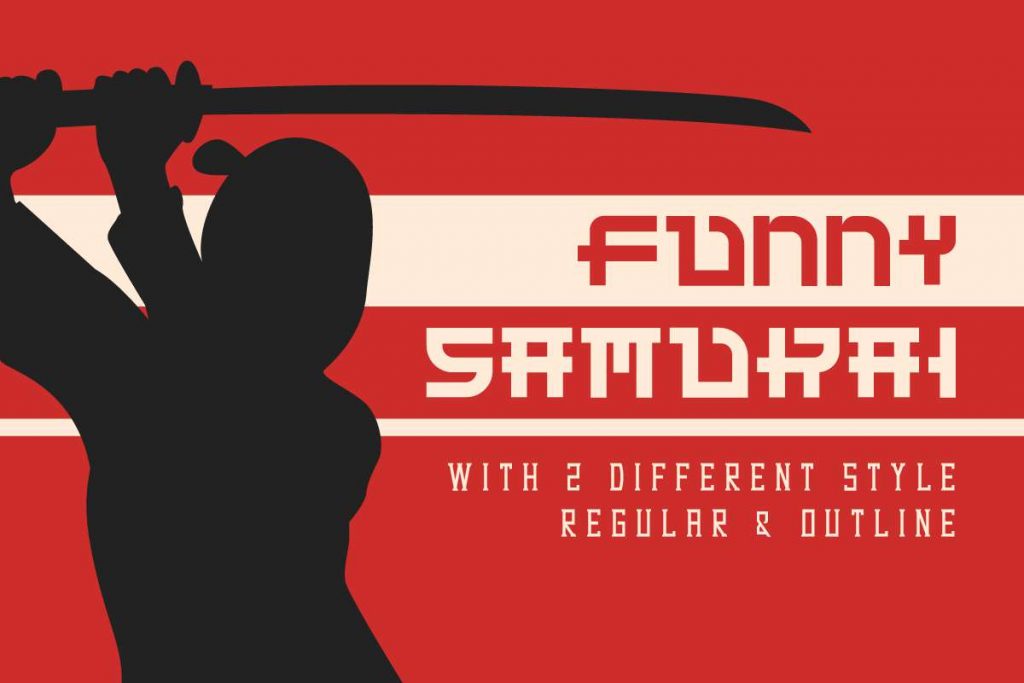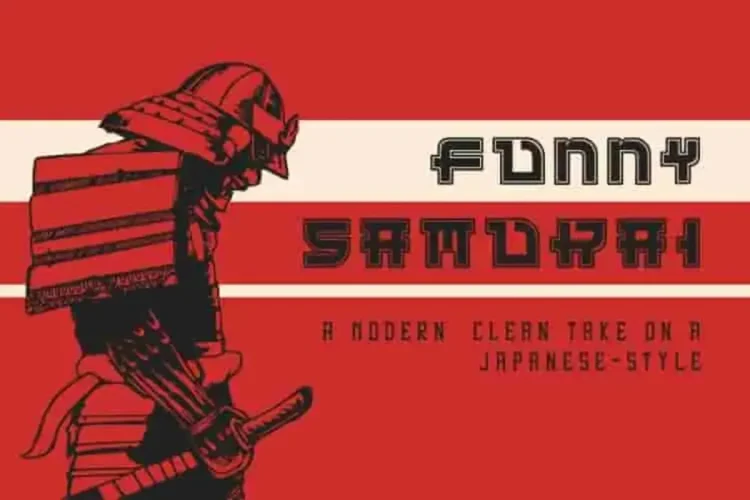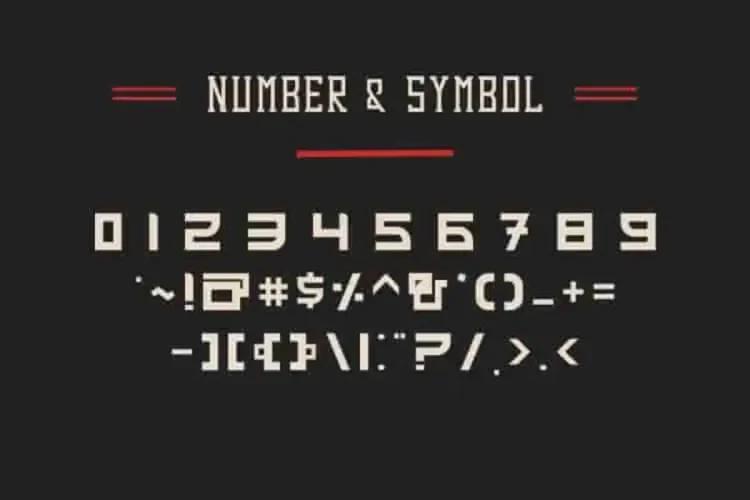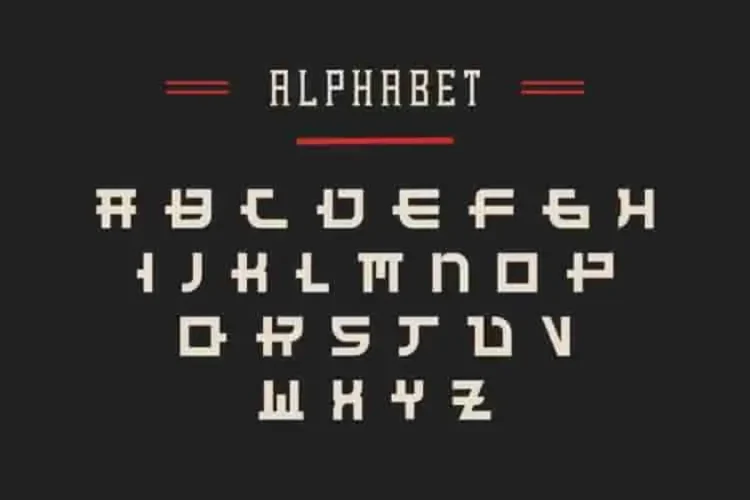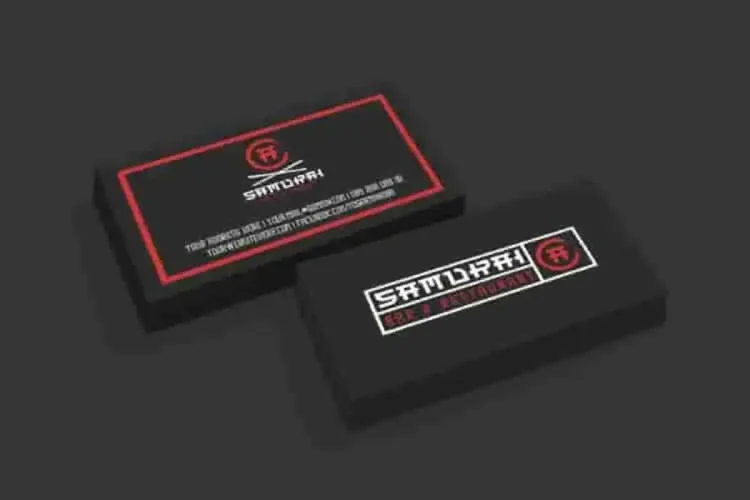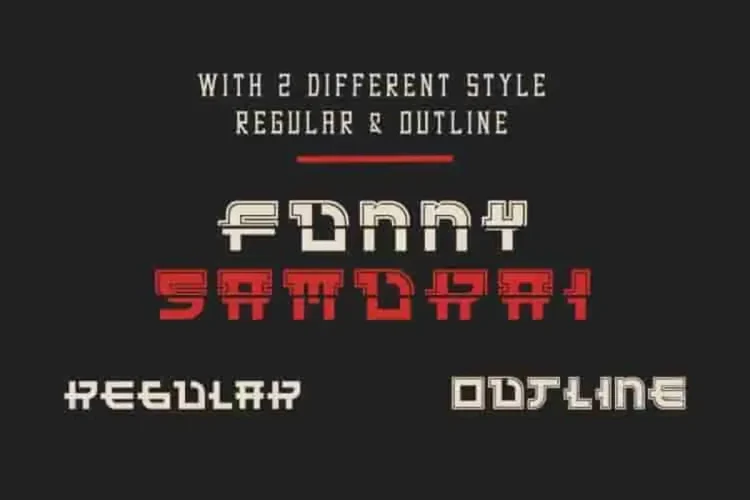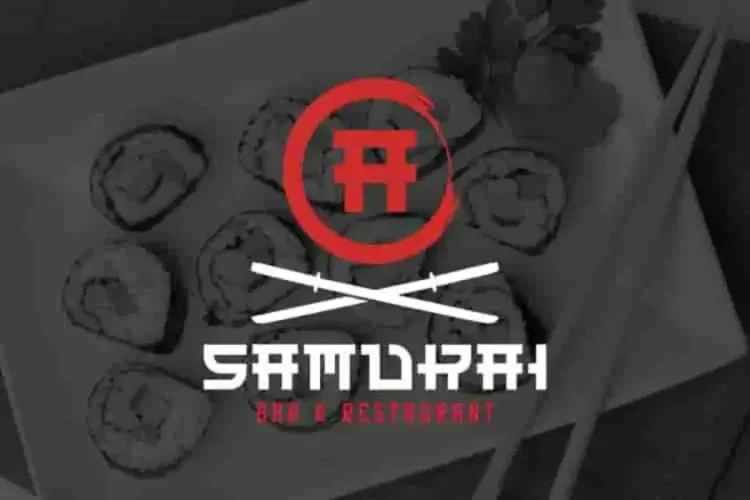
FunnySamurai Sans Serif Font
Looking for a fun, eye-catching font that blends bold style with Japanese comic flair? Meet FunnySamurai – a Sans Serif Font that’s anything but ordinary. The industries that will suit this font will be casual, comic, cafe, restaurant, japanese law firm etc
🖋 FunnySamurai comes with TWO dynamic styles: Regular and Outline.
• Regular: Bold, clean, and impactful. This version is perfect for titles, branding, and signage. Its strong sans serif structure is balanced with comic-inspired curves that give it a playful yet confident personality—great for cafes, comics, or modern Japanese themes.
• Outline: A creative, outlined version that adds depth and visual contrast. Use it to build layered typography, give dimension to headlines, or make your logo stand out. It’s ideal for quirky brands, magazine covers, or anything that needs a touch of bold originality with a graphic twist.
Whether you’re designing for a comic book, a casual café, a Japanese-themed restaurant, or even a quirky law firm, FunnySamurai delivers a fresh, modern look that instantly grabs attention.
• ✨ Comic-style Sans Serif with Japanese influence
• ✨ Includes 2 Styles: Regular & Outline
From branding to print media, this font is perfect for creatives looking to break away from the ordinary and make a bold, fun impression. Its clean sans serif base keeps your text readable, while the comic-inspired curves bring an exciting twist.